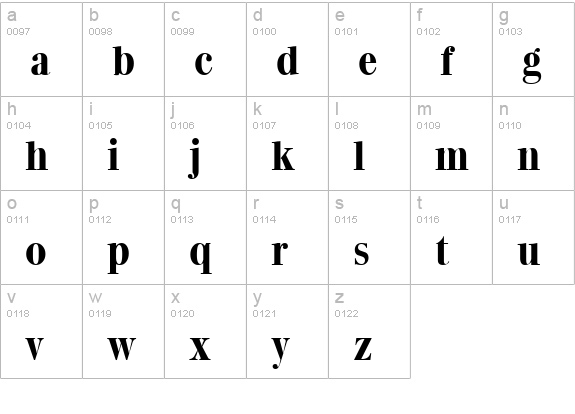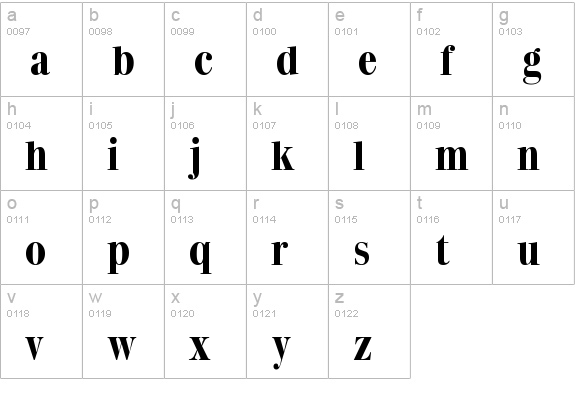
Quantas Bold is a strong, high-contrast variant in the Quantas typeface family \xE2\x80\x94 well suited to headlines, attention-grabbing titles, and strong calls-to-action.
Quantas Bold is a striking and powerful font that exudes confidence and sophistication. With its bold and assertive letterforms, this typeface is perfect for creating eye-catching headlines, titles, and logos that demand attention. The thick and prominent strokes of Quantas Bold make it stand out on any design, providing a bold statement that is impossible to ignore. Whether it's for advertising materials, packaging, or branding projects, this font will make your message pop and leave a lasting impression on your audience. What sets Quantas Bold apart is not just its visual impact, but also its versatility. It is equally suited for both modern and classic designs, effortlessly adapting to various styles and aesthetics. From sleek and contemporary to elegant and refined, this font can effortlessly enhance any project's visual appeal. And the best part? Quantas Bold is freely available to download at FontsMarket.com. This means that you can easily access and use this powerful font for your personal or commercial projects without any restrictions. Whether you're a graphic designer or a business owner, this font provides you with the freedom to create stunning visuals that truly stand out. So why settle for ordinary fonts when you can make a bold statement with Quantas Bold? Download this unique and impactful font today and take your designs to the next level.